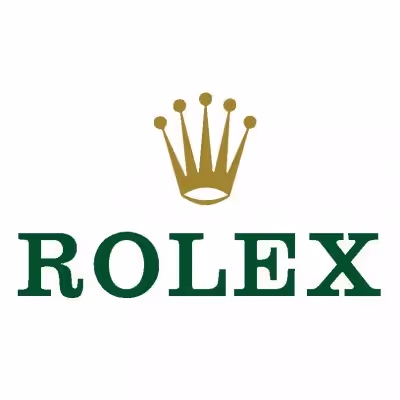
Rolex Font
Garamond
The closest font you can get for the "Rolex Font" logo is this font
The Rolex logo font is a custom serif typeface inspired by Garamond. Rolex SA is a Swiss luxury watch manufacturer based in Geneva, Switzerland. Originally founded in 1905 as Wilsdorf and Davis in London, the company registered Rolex as its brand name in 1908 and later became Rolex Watch Co. Ltd. The Rolex logo font features elegant serif letterforms with refined curves and balanced proportions. The classic typography reflects heritage, precision, and timeless luxury, reinforcing Rolex’s position in high end watchmaking.